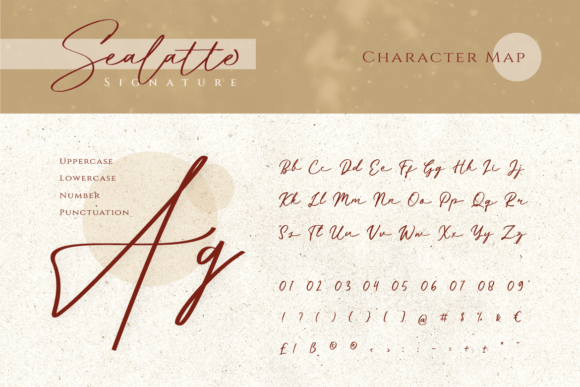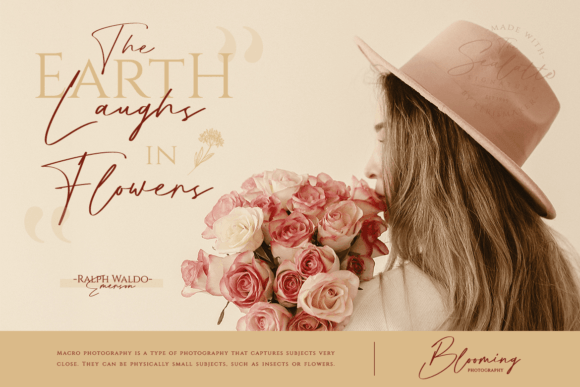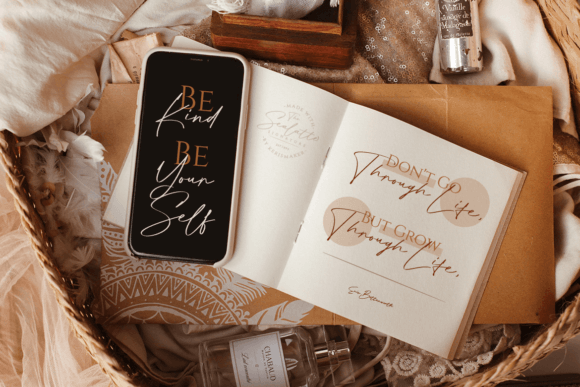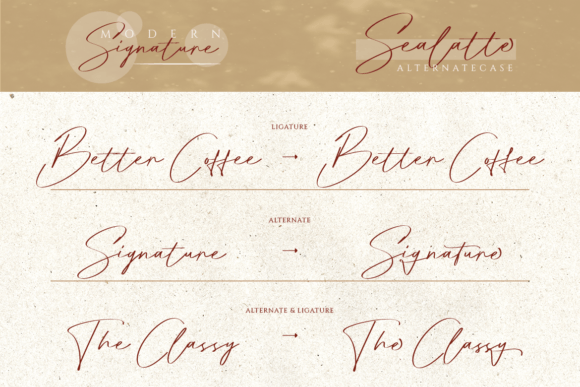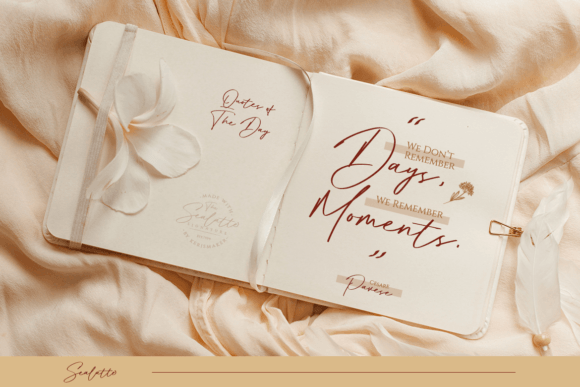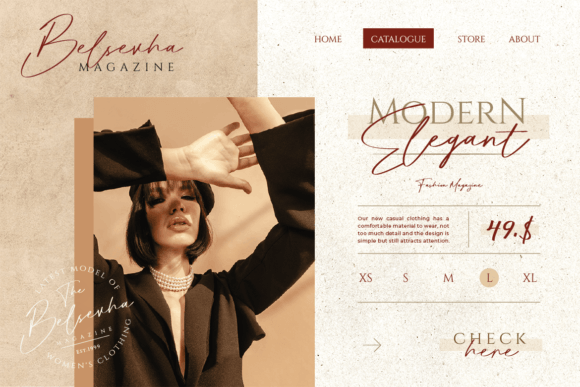
Introduction to Sealatte Font
Proudly present Sealatte signature.
An Elegant charming handwritten font to improve your typography design looks modern and stunning This font is perfect for logo designs, social media, movie titles, book titles, short text, or even long text letters.